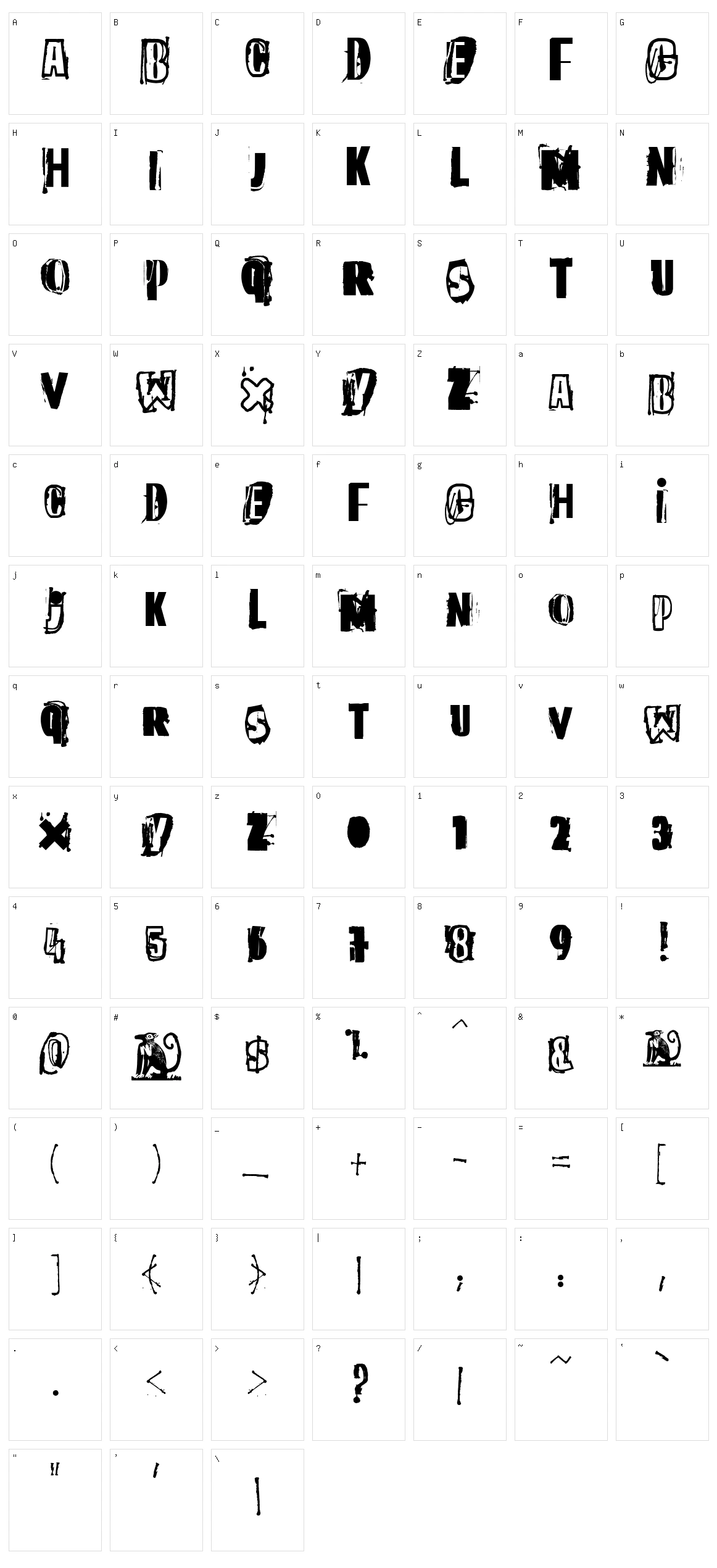
The free font The quick monkey is carefully designed by paintblack, showcasing a thoughtful balance of creativity and usability and falls under the Distorted font style. When you download the ZIP file, it contains only 188.14 KB of font files, making it lightweight and quick to download. Please review the license details below to understand permitted usage and distribution rights. If license information is not available, we recommend using this font for personal projects only or contacting the author directly for commercial usage permissions.